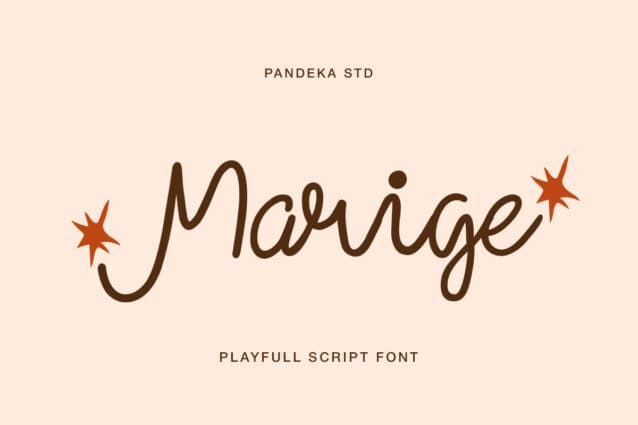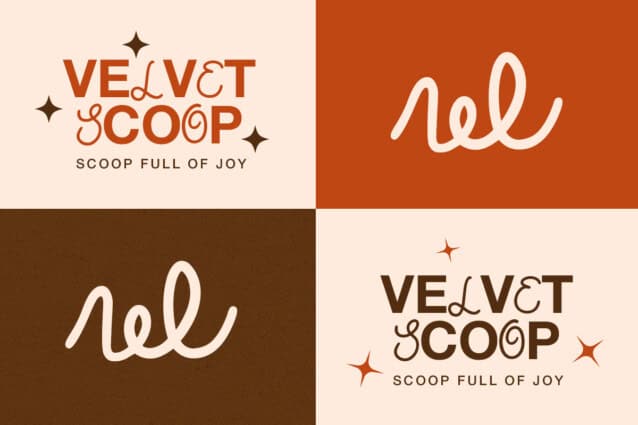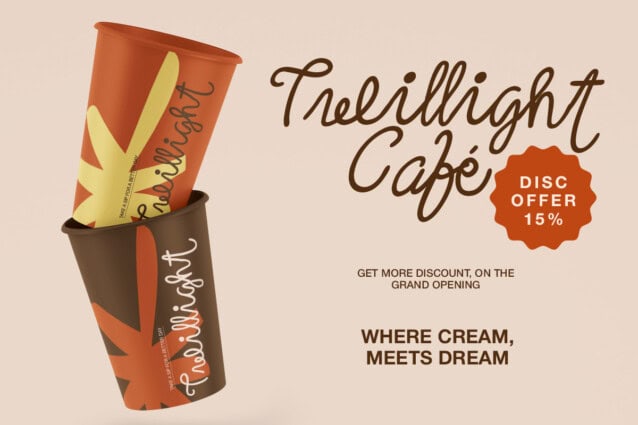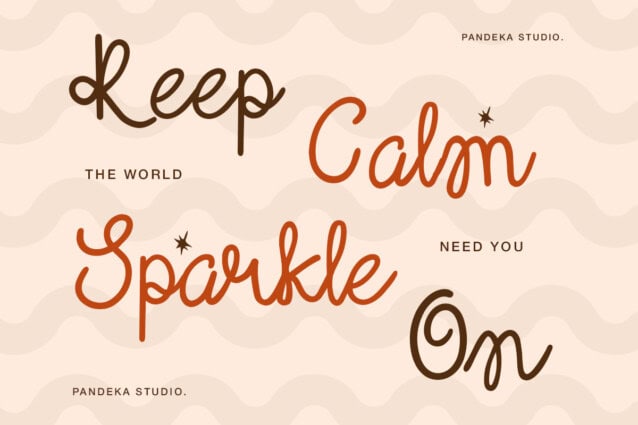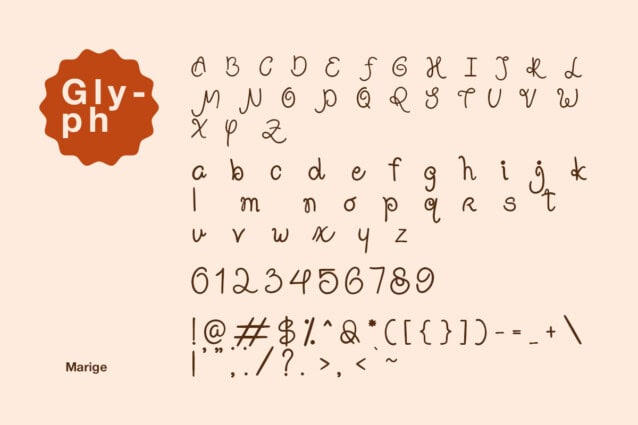
Marige Script Font
Marige Script Font – A charming and playful handwritten font designed to bring a touch of cuteness and creativity to your projects. With four adorable 4 styles (Regular, Script, Italic, Script Italic), Marige is perfect for children’s illustrations, kids’ projects, storybooks, nursery decor, cute branding, and anything related to whimsical, child-friendly designs.